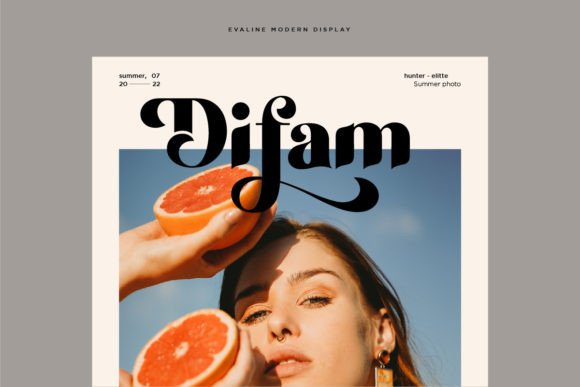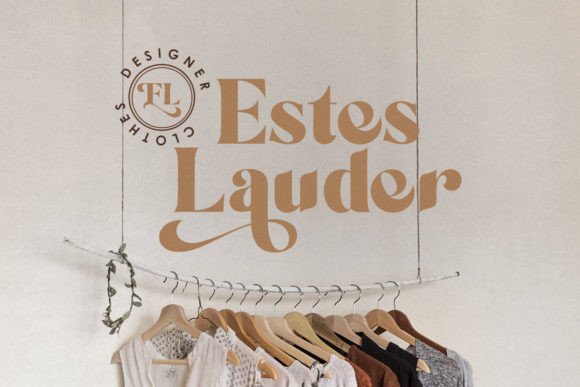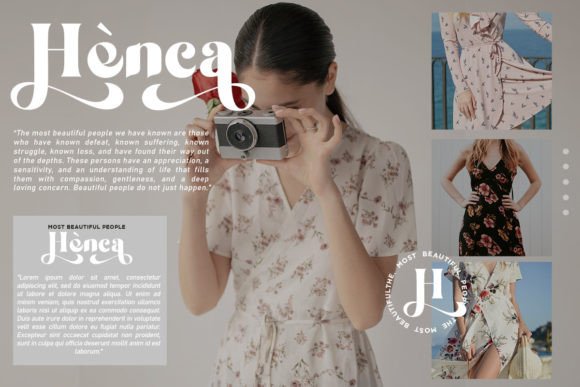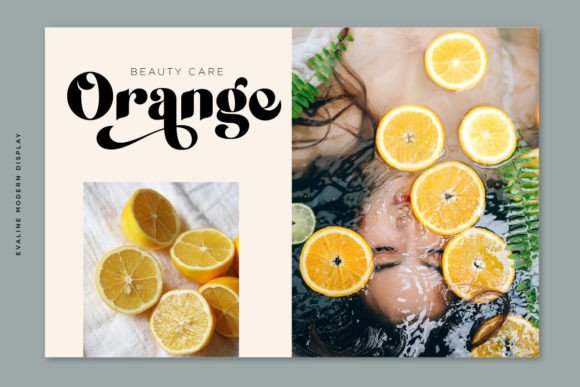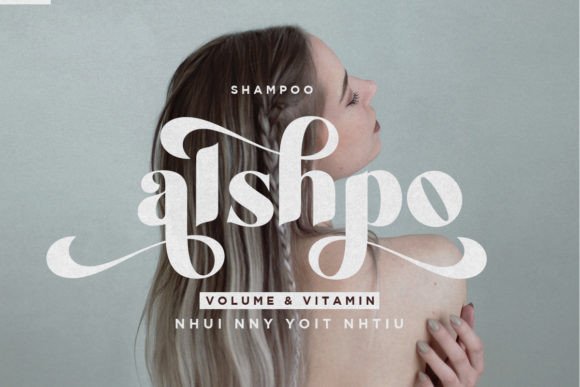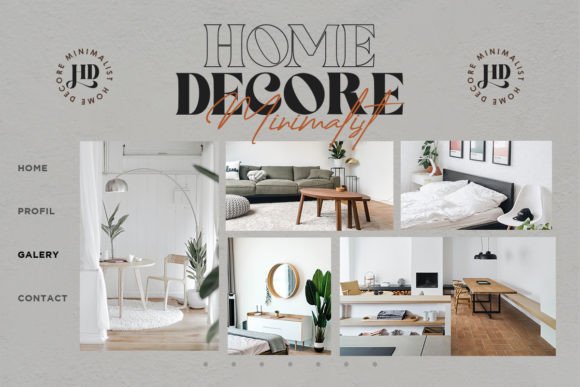
Introducing Evaline Font: The Ultimate Modern Serif Typeface for Designers and Crafters
Are you a designer or crafter looking for a versatile font that can elevate your projects to the next level? Look no further than Evaline Font, a modern serif typeface that is perfect for a wide range of applications. From headlines and logos to labels, branding projects, magazines, homeware designs, product packaging, mugs, quotes, posters, and more, Evaline Font is the ultimate solution for anyone seeking a stylish and flexible font.
What Makes Evaline Font So Versatile?
Evaline Font is designed to work seamlessly in both large and small sizes, making it an excellent choice for various projects. Its modern serif design ensures that it remains legible and elegant, even at smaller font sizes. This versatility is further enhanced by the font’s PUA encoding, which allows easy access to all glyphs and swashes. With Evaline Font, you can experiment with different styles and combinations to create unique and captivating designs.
One of the standout features of Evaline Font is its extensive range of alternatives and binders. These combine harmoniously to make the font more interesting and versatile, allowing you to add a touch of personality to your designs. Whether you’re creating a bold headline or a subtle label, Evaline Font provides the perfect balance of elegance and playfulness.
Evaline Font is an excellent choice for designers and crafters who want to add a professional touch to their projects. Its modern serif design ensures that your work looks polished and sophisticated, while its versatility allows you to experiment with different styles and applications. From branding and packaging to posters and quotes, Evaline Font is the perfect companion for any creative project.
Key Features of Evaline Font
- Modern Serif Design: Elegant and legible, perfect for large and small sizes.
- Versatile: Suitable for a wide range of projects, including headlines, logos, labels, branding, magazines, homeware designs, product packaging, mugs, quotes, posters, and more.
- PUA Encoded: Easy access to all glyphs and swashes.
- Extensive Alternatives and Binders: Combine harmoniously to add personality and interest to your designs.
How to Use Evaline Font in Your Projects
Tips and Tricks for Getting the Most Out of Evaline Font
To get the most out of Evaline Font, try the following tips and tricks:
- Experiment with Different Font Sizes: Evaline Font works well in both large and small sizes, so don’t be afraid to experiment with different font sizes to find the perfect balance for your project.
- Combine with Other Fonts: Evaline Font pairs well with a range of other fonts, so try combining it with different styles to create a unique look.
- Use the Alternatives and Binders: The extensive range of alternatives and binders in Evaline Font allows you to add personality and interest to your designs. Experiment with different combinations to find the perfect look for your project.
Evaline Font is a modern serif typeface that offers a unique combination of versatility, elegance, and playfulness. With its PUA encoding, extensive range of alternatives and binders, and modern serif design, Evaline Font is perfect for designers and crafters looking to elevate their projects to the next level. Whether you’re creating a bold headline or a subtle label, Evaline Font is the ultimate solution for anyone seeking a stylish and flexible font.